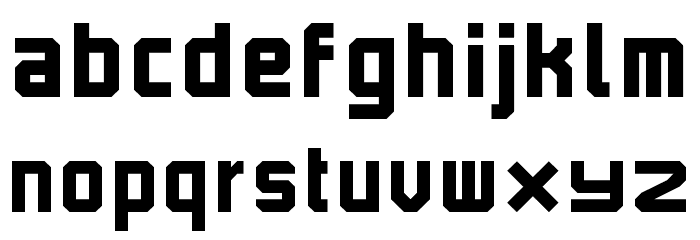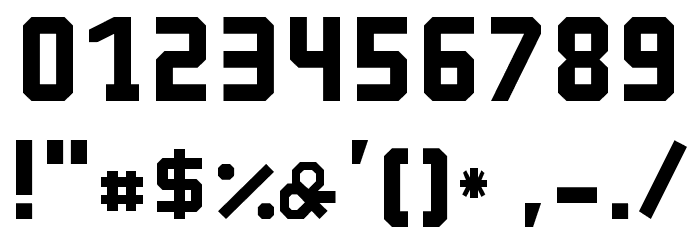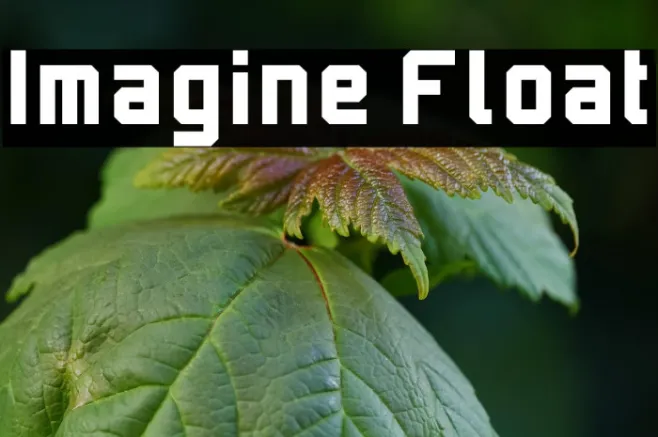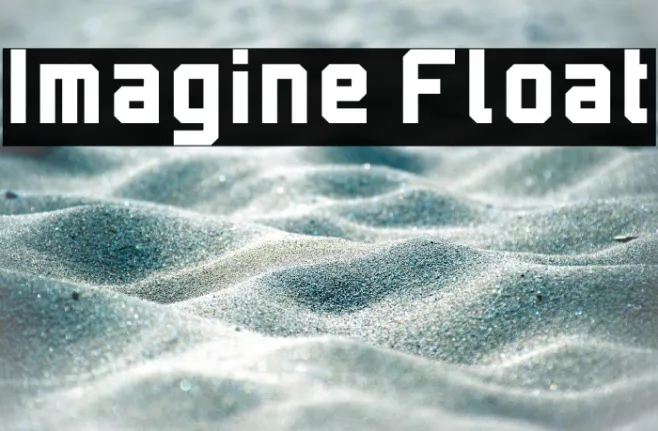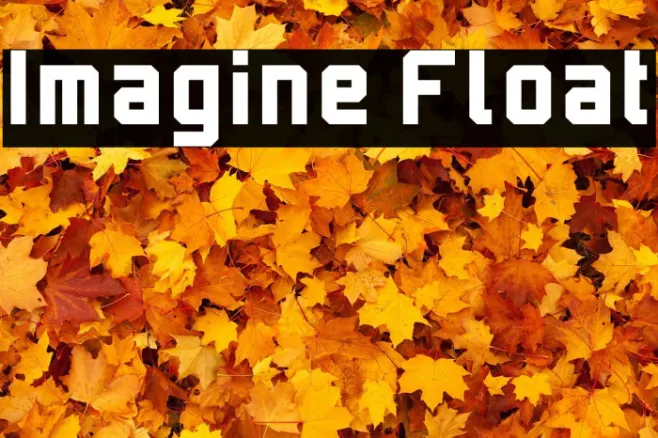
Imagine Float Font
This font features a bold, geometric style with a strong presence. The characters are constructed with straight lines and sharp angles, giving it a modern and industrial feel. The uppercase and lowercase letters maintain a consistent height, while the numerals and special characters are designed to match the overall aesthetic. The font's blocky appearance makes it highly legible and suitable for various design applications. Its uniform stroke width and lack of contrast contribute to a clean and cohesive look, ideal for projects that require a strong visual impact.
- Proposed Projects: Ideal for branding, posters, headlines, and digital interfaces where a strong, modern look is desired.